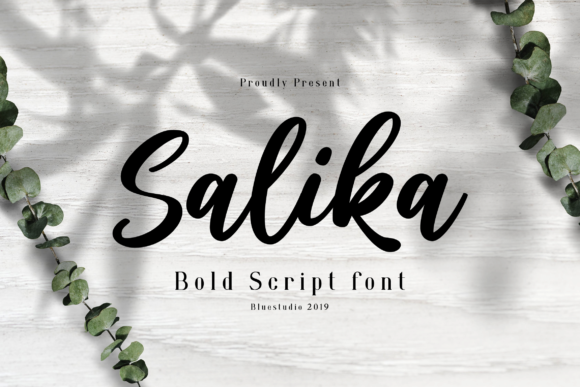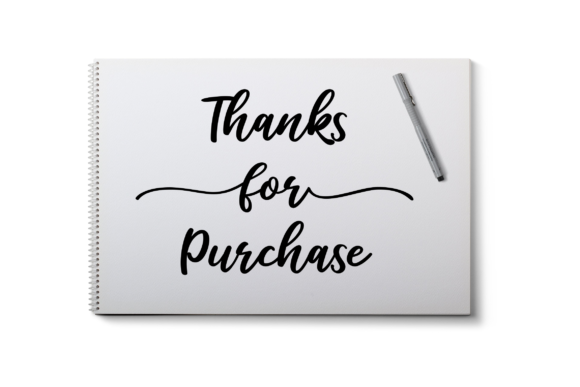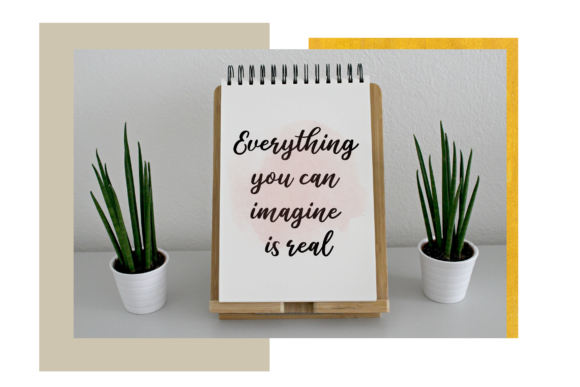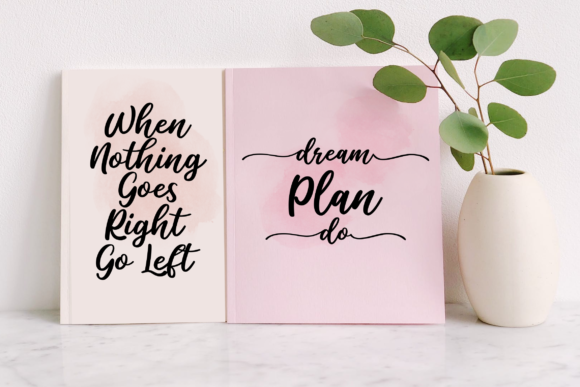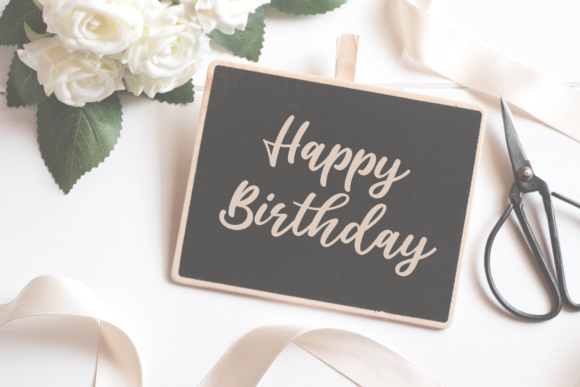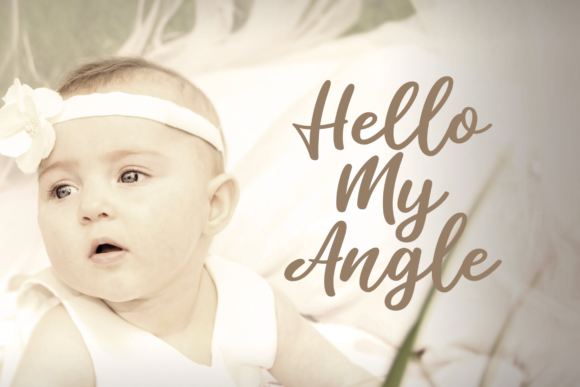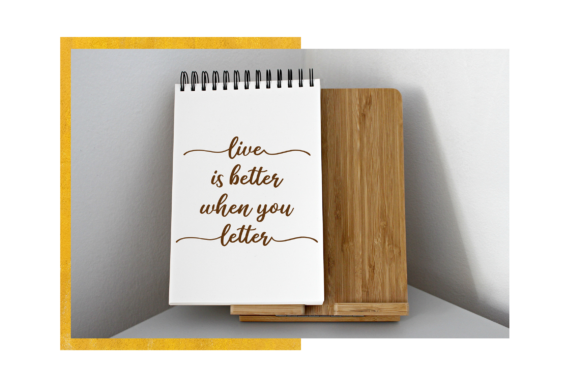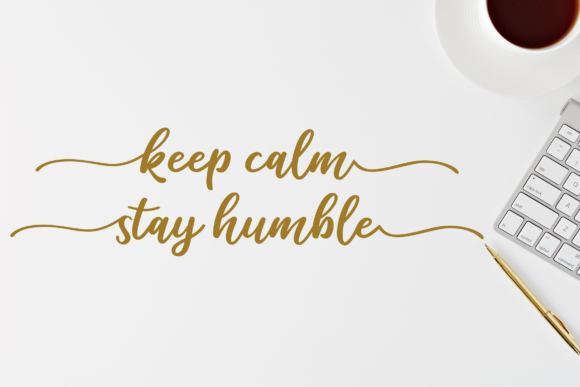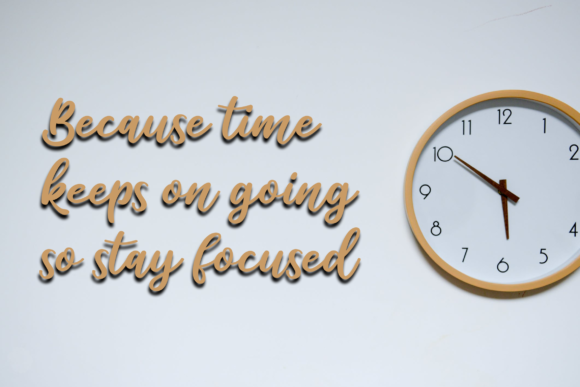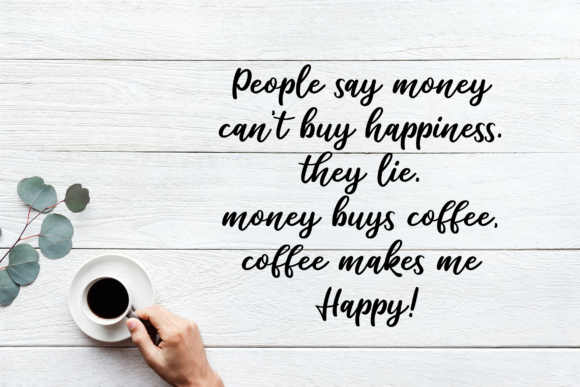
Salika Font
About Salika Font
Salika is a delicate and charming handwritten font with a bold feel. Use it to add a sophisticated spark to any design project!